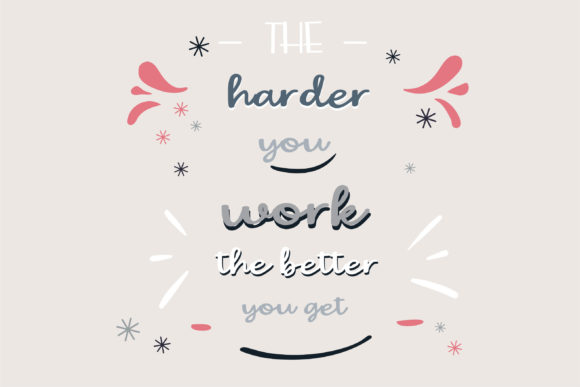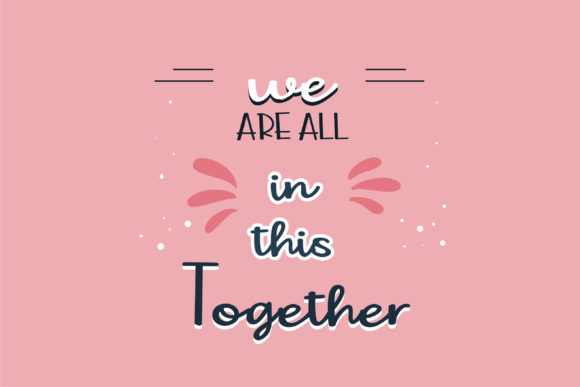
ZP Chicken Hawk Font
db-ku.com - Script & Handwritten -- ZP Chicken Hawk is a simple script font created for packaging products, invitation cards, flyers, mockups, event posters, and anything else that requires high-quality vibes. It has a beautiful and balanced character, that fits well with the large design pool.